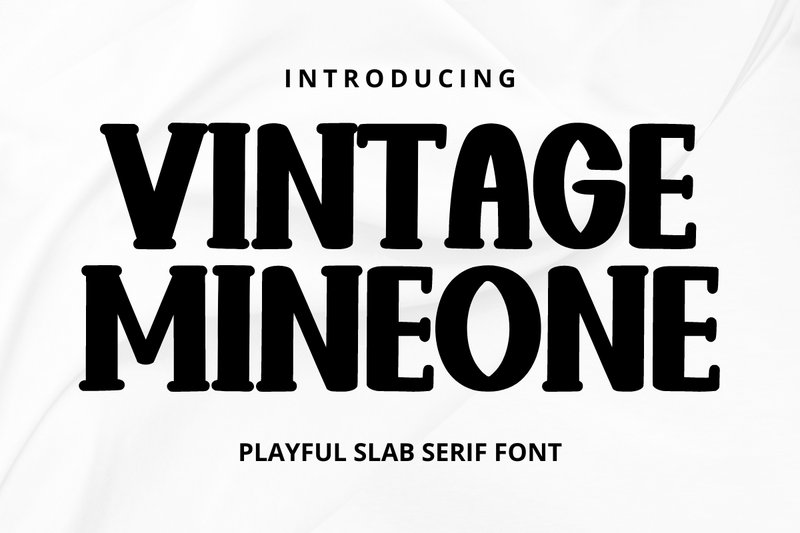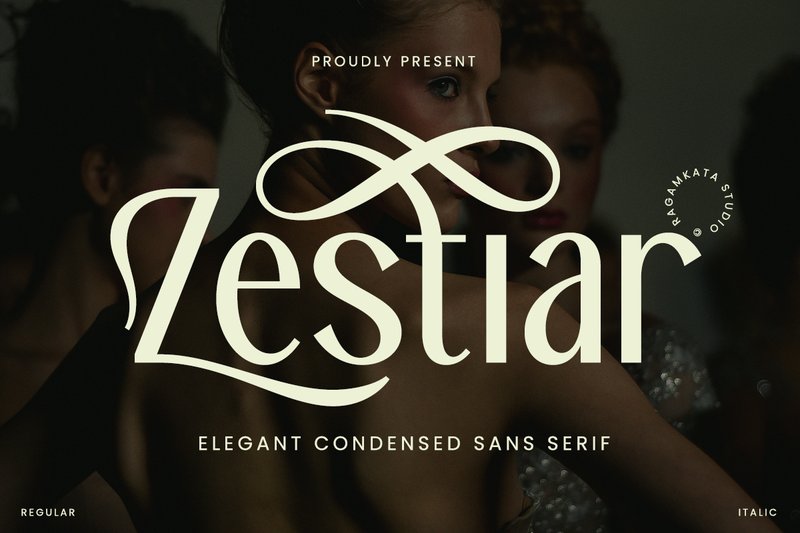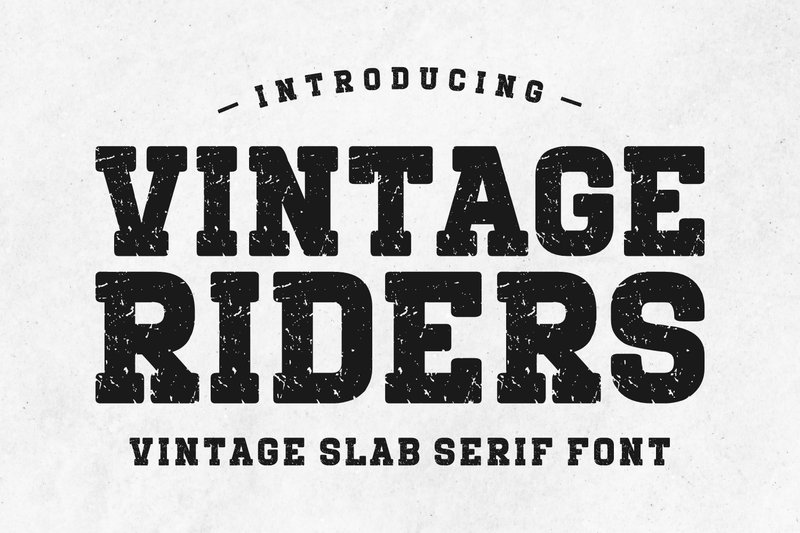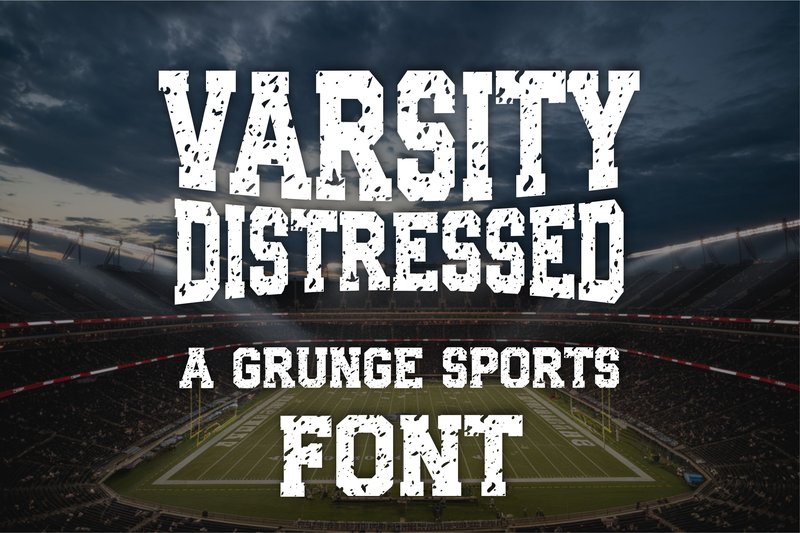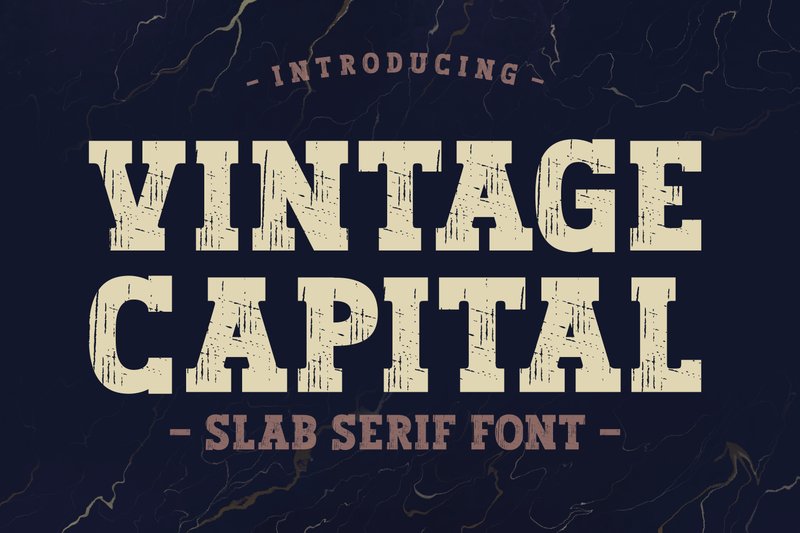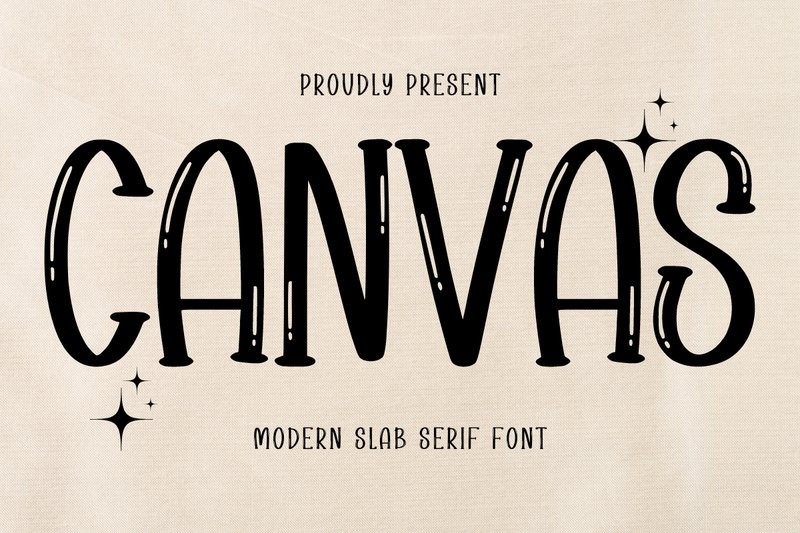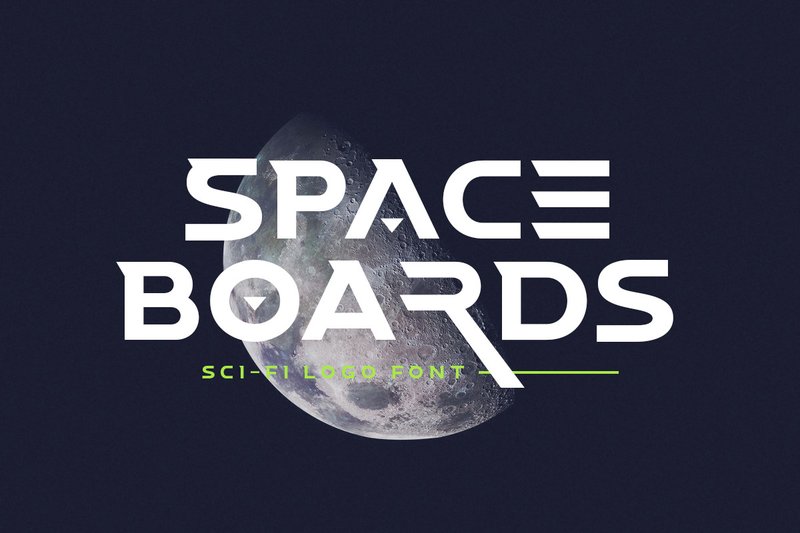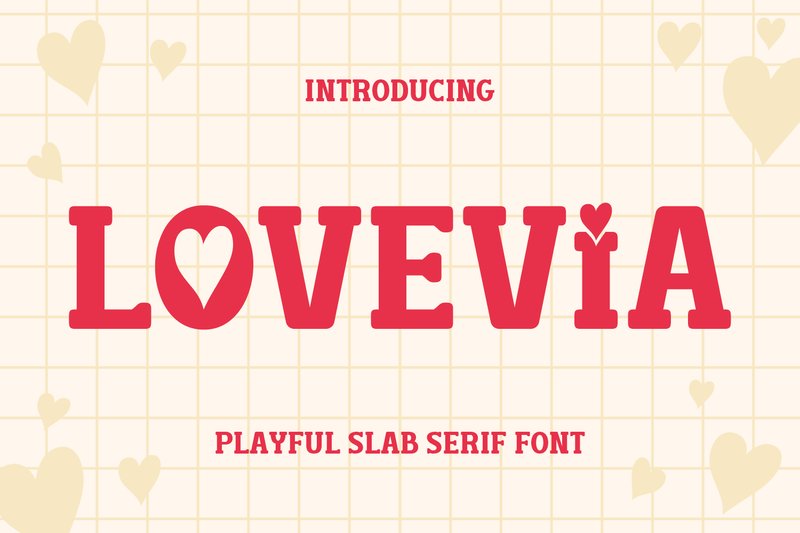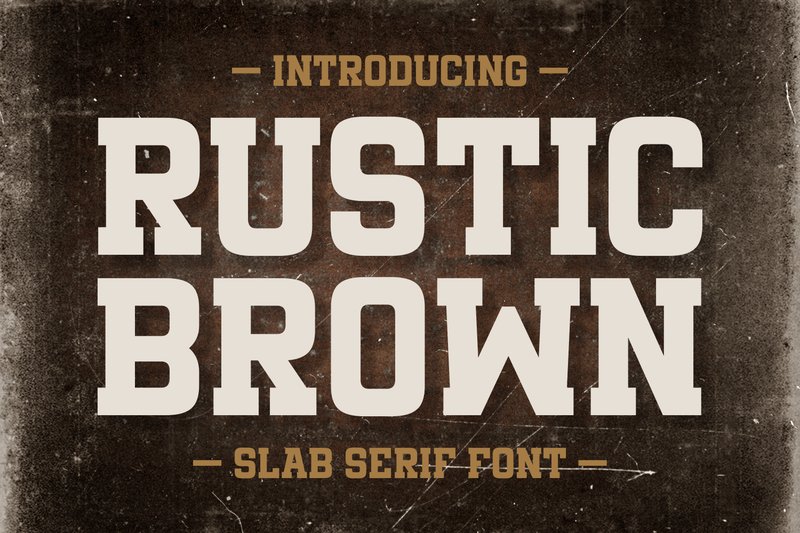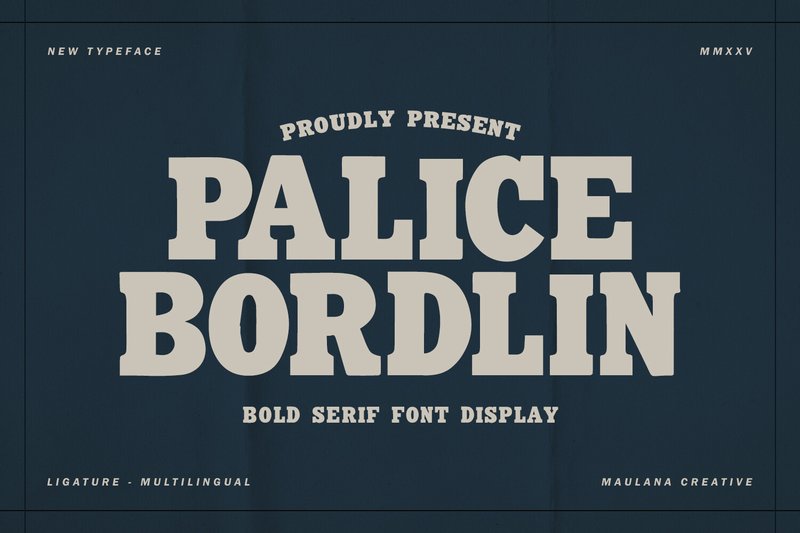
Slab serifs are making a powerful comeback in the 2026 design scene, and for good reason. These bold, blocky fonts command attention while maintaining excellent readability, striking the perfect balance between character and clarity. For designers and DIY crafters alike, they offer a versatile tool for creating impactful headlines, memorable logos, and standout branding. As we move towards more confident and authentic design trends, slab serifs provide the solid foundation your projects need. We’ve curated a list of 44 of the most popular and compelling slab serif fonts available right now, ensuring you’ll find the perfect match for any creative endeavor.
1. Into the Wild (by Salt and Pepper Fonts)
Into the Wild (by Salt and Pepper Fonts) evokes the feeling of a well-worn field guide or a hand-painted sign pointing toward a hidden trail. This font radiates a rugged, nostalgic warmth that feels both adventurous and approachable. Its sturdy slab serifs ground each letter with confidence, while subtle vintage details give it a timeless, handcrafted quality. It’s the kind of typeface that doesn’t shout for attention but earns it with an honest, earthy charm, making it a powerful tool for projects that need to feel authentic and grounded.
- Confident, heavy slab serifs that provide a strong visual anchor.
- A distinct vintage aesthetic with a clean, modern sensibility.
- Excellent clarity and readability, particularly for display text and headlines.
- A complete character set that maintains a consistent, handcrafted feel.
- Branding for outdoor gear, craft breweries, coffee roasters, and artisanal goods.
- Impactful headlines for posters, book covers, and editorial layouts.
- Packaging designs that require an authentic, rustic, and trustworthy vibe.
- Eye-catching social media graphics and quotes with a touch of retro cool.
2. Vintage Mineone (by Minimalist Eyes)
Vintage Mineone (by Minimalist Eyes) is a charismatic slab serif that injects a dose of friendly confidence and retro charm into any project. Its delightfully chunky serifs and wide letterforms create a bold, inviting presence that feels both nostalgic and perfectly suited for current design trends. This font doesn’t just sit on the page; it makes a statement with a playful, approachable personality that is impossible to ignore.
- Thick, high-impact letterforms
- Pronounced, chunky slab serifs
- Wide character construction for a stable, grounded feel
- A playful yet powerful overall personality
- Impactful headlines and hero text for posters
- Bold branding and product labeling for lifestyle brands
- Apparel graphics and custom t-shirt typography
- Eye-catching social media banners and promotional materials
3. Zestiar (by RagamKata Studio)
Zestiar (by RagamKata Studio) exudes a vibrant energy that completely transforms the condensed sans-serif archetype. Instead of rigid efficiency, this typeface delivers a masterful performance of fluidity and grace, infusing each letter with an organic, calligraphic rhythm. Its exuberant, swash-like terminals break free from convention, offering a look that is simultaneously polished and full of life. Zestiar is the perfect choice for projects that demand a voice, turning simple headlines into expressive statements and giving brands an unmistakably current and whimsical personality.
- Exuberant, swash-like terminals that introduce a graceful, calligraphic flair.
- A highly condensed and elongated form, perfect for creating impact in narrow spaces.
- An organic, rhythmic flow that feels both fluid and highly polished.
- Unique character shapes, including elegantly extended letterforms for ‘Z’ and ‘r’.
- Crafting distinctive logos and identities for lifestyle brands, cafes, and boutiques.
- Designing attention-grabbing headlines and titles for websites and editorial layouts.
- Creating chic, modern graphics for social media campaigns.
- High-concept advertising that requires a blend of personality and sophistication.
4. Vintage Riders (by Riman (7NTypes))
Vintage Riders (by Riman (7NTypes)) evokes the timeless spirit of rugged Americana and classic workshop aesthetics. This unapologetically bold slab serif is a powerhouse of character, built on a foundation of thick, confident letterforms that command immediate attention. Its robust structure projects strength and reliability, yet its clean lines offer a surprising versatility, allowing it to anchor both retro-inspired designs and contemporary branding that requires a touch of enduring class.
- A heavy, commanding weight that ensures high visibility.
- Strong, geometric slab serifs that project confidence and stability.
- Clean and well-defined letterforms for excellent readability in display sizes.
- A versatile character that fits both vintage and modern design contexts.
- Branding and logotypes for heritage, craft, or automotive brands.
- Impactful headlines and titles in editorial layouts and posters.
- Packaging design that requires a strong, trustworthy shelf presence.
- Statement apparel graphics and merchandise with a retro vibe.
5. Varsity Distressed (by TonisArtStudio)
Varsity Distressed (by TonisArtStudio) is the antithesis of delicate, handwritten calligraphy; it doesn’t whisper, it roars from the stadium bleachers. This typeface delivers a powerful, mechanical punch, stamping each character with the grit and glory of a hard-won championship. Its rugged slab serif forms and authentic grunge texture feel less like they were designed on a screen and more like they were earned on the field, weathered by seasons of intense competition. It channels the raw, unfiltered energy of classic collegiate sports, making it an instant MVP for any design that needs to convey a bold, competitive spirit with a timeless, athletic vibe.